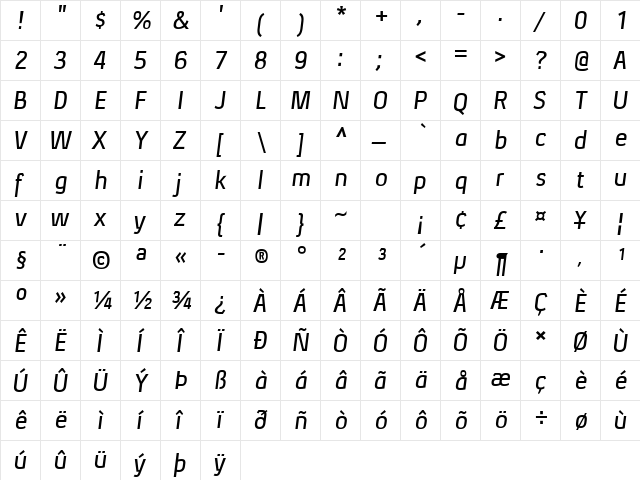
Xenu Semibold Italic
Design Context for Xenu Semibold Typeface
Xenu Semibold is a composed and adaptable typeface that performs quietly and consistently across a wide range of design contexts. The dynamic lean of this cut emphasises speed and emphasis in any layout. The heavy weight commands attention and anchors typographic hierarchies.
Pro Tip: Try Xenu Semibold for annotation and caption copy alongside an upright companion — the contrast in angle creates a dynamic but ordered typographic system.